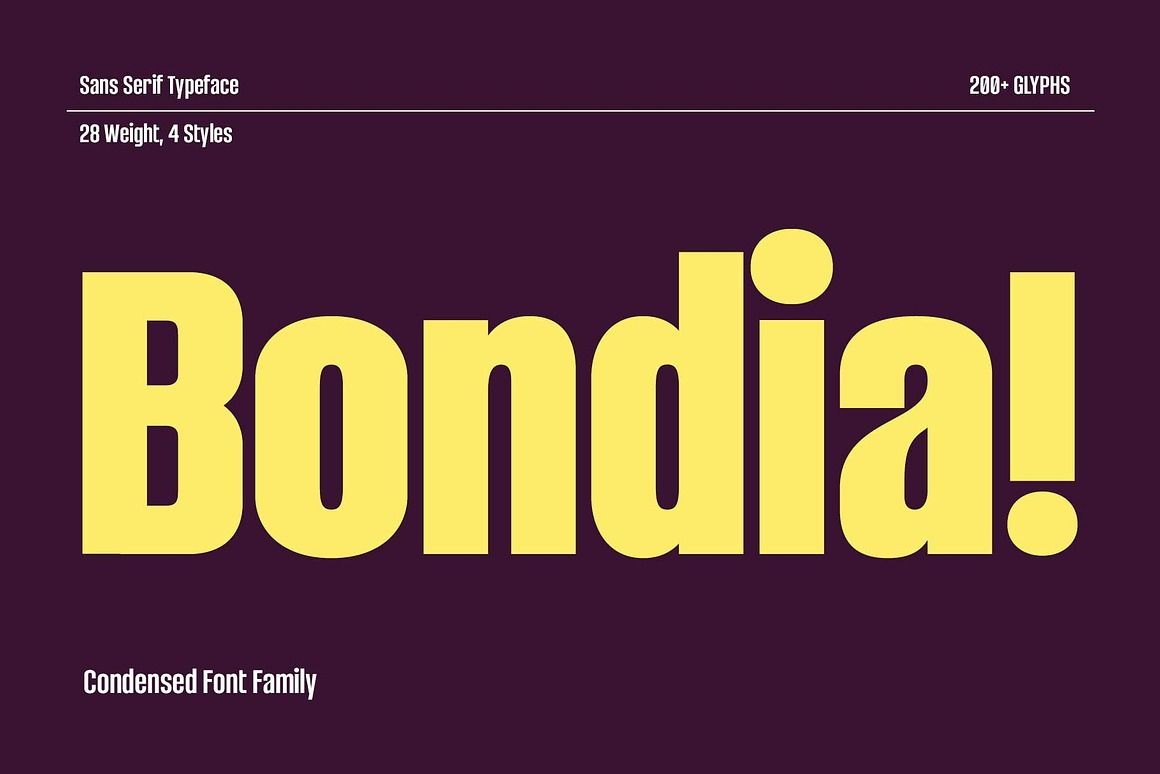
Bondia Font
About Bondia
Bondia is a fresh condensed sans serif that merges elegance, strength, and modern appeal. Designed for both impact and readability, it comes in 7 weights and 4 styles, offering flexibility for various design needs. Its sleek, narrow structure delivers a sporty and futuristic look, making it a go-to choice for bold and stylish visuals.